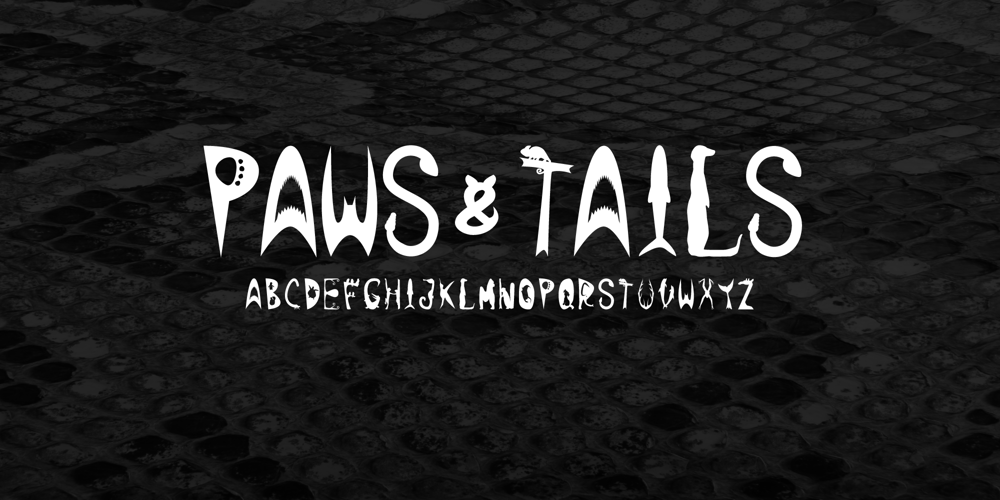
Paws & Tails Font Family was designed by James Gordon and published by whyteshark. Paws & Tails contains 1 styles and family package options. This is a fun animal-based font design. Great for posters for school, pet shops, animal-companies/organizations. Use one letter to start your word or use all of them, you’ll have a truly unique logo and company style with this font. Contain only upper case letters.